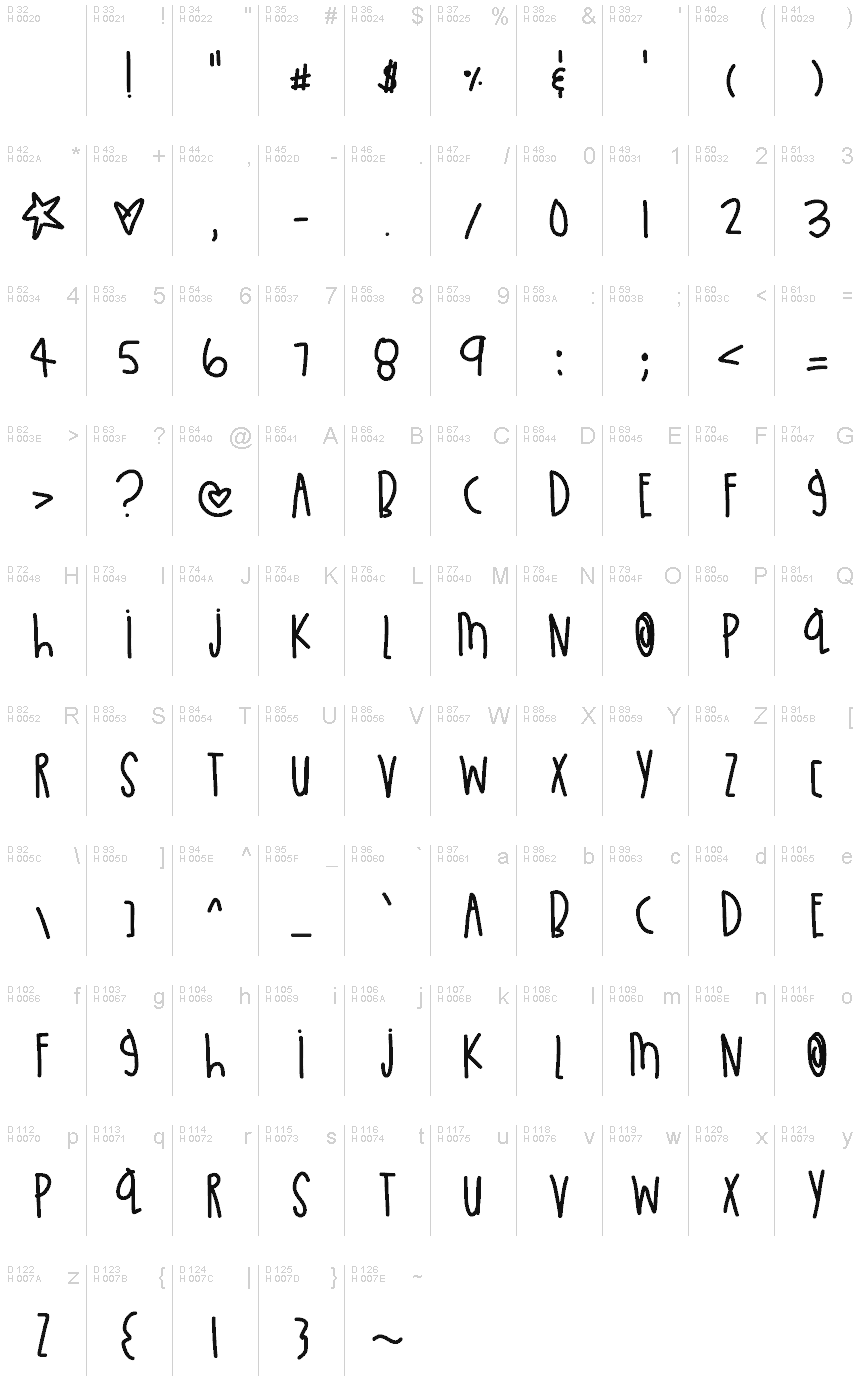
LittleBlueJay
Little Blue Jay, a captivating handwritten font crafted by the talented Des Gomez, exudes a sense of effortless charm and whimsy. With its condensed width and organic, flowing strokes, this font radiates a playful yet refined aesthetic. The irregular, hand-drawn letterforms lend the design a unique character, inviting the reader to engage with the content on a more personal level.
The distinct personality of Little Blue Jay makes it a versatile choice for a wide range of design applications, from editorial layouts and branding elements to invitations and greeting cards. Its condensed structure allows for seamless integration into compact spaces, while the expressive, handwritten style adds a touch of individuality and warmth to any project.